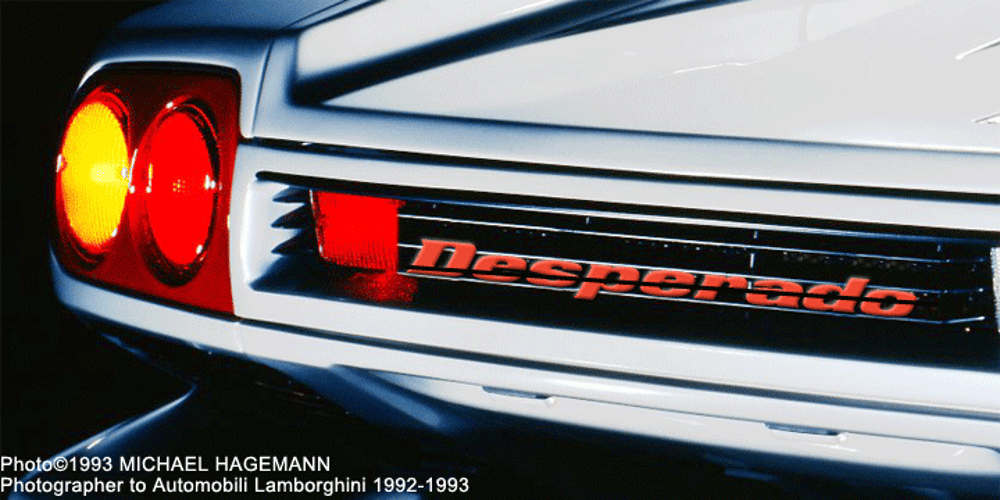
Desperado Font Family was designed by Michael Hagemann and published by FontMesa. Desperado contains 1 styles and family package options. Desperado is a modern bold type style that will work well in sign and truck lettering.